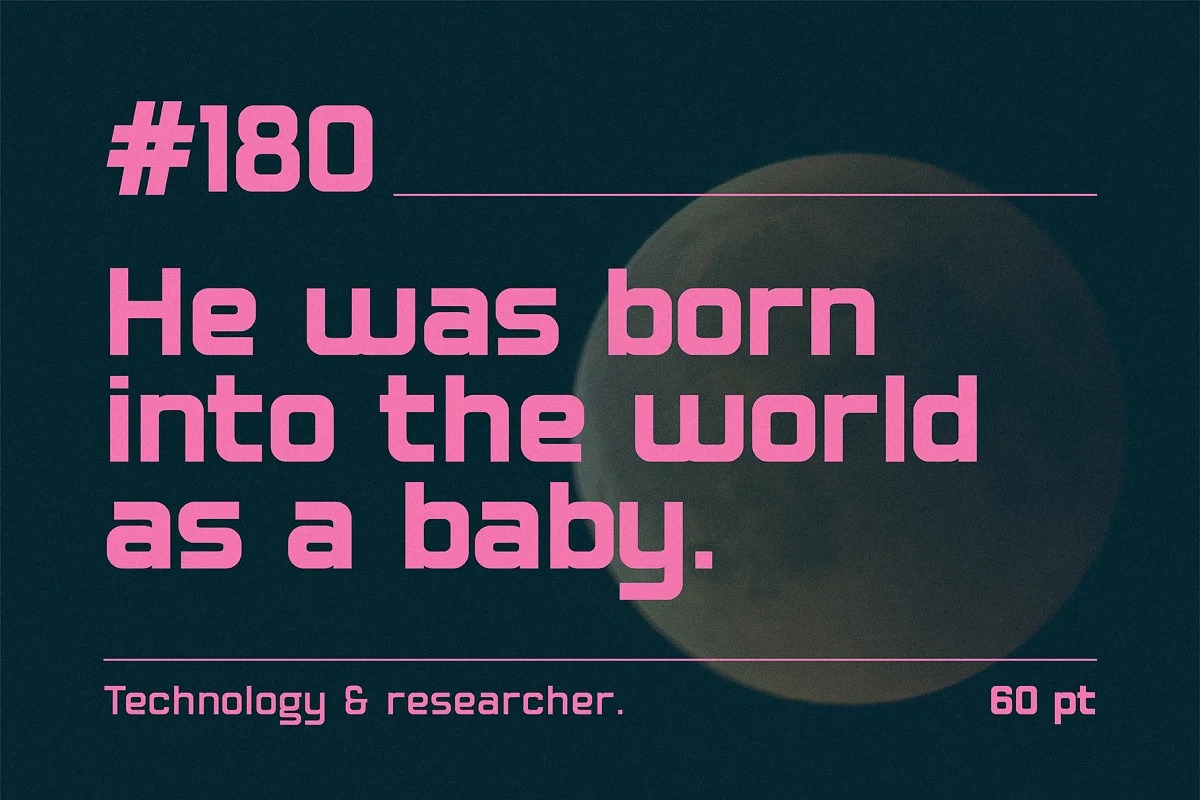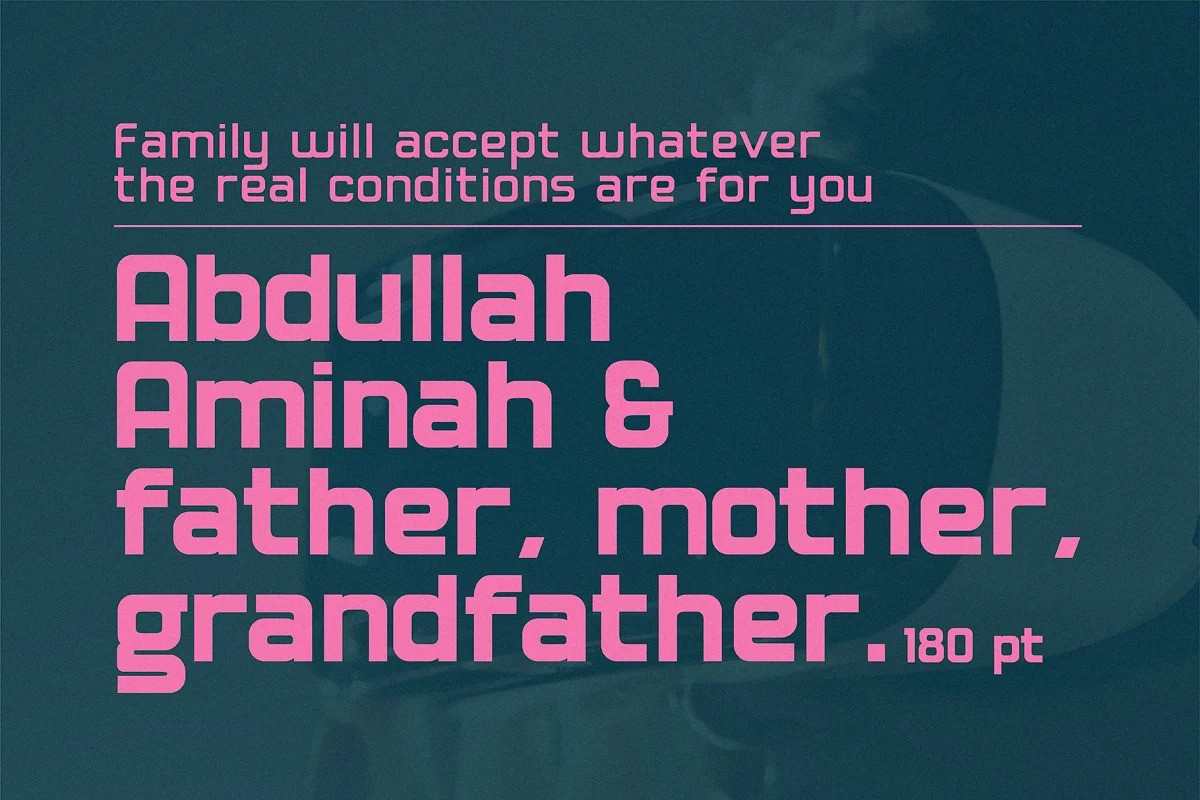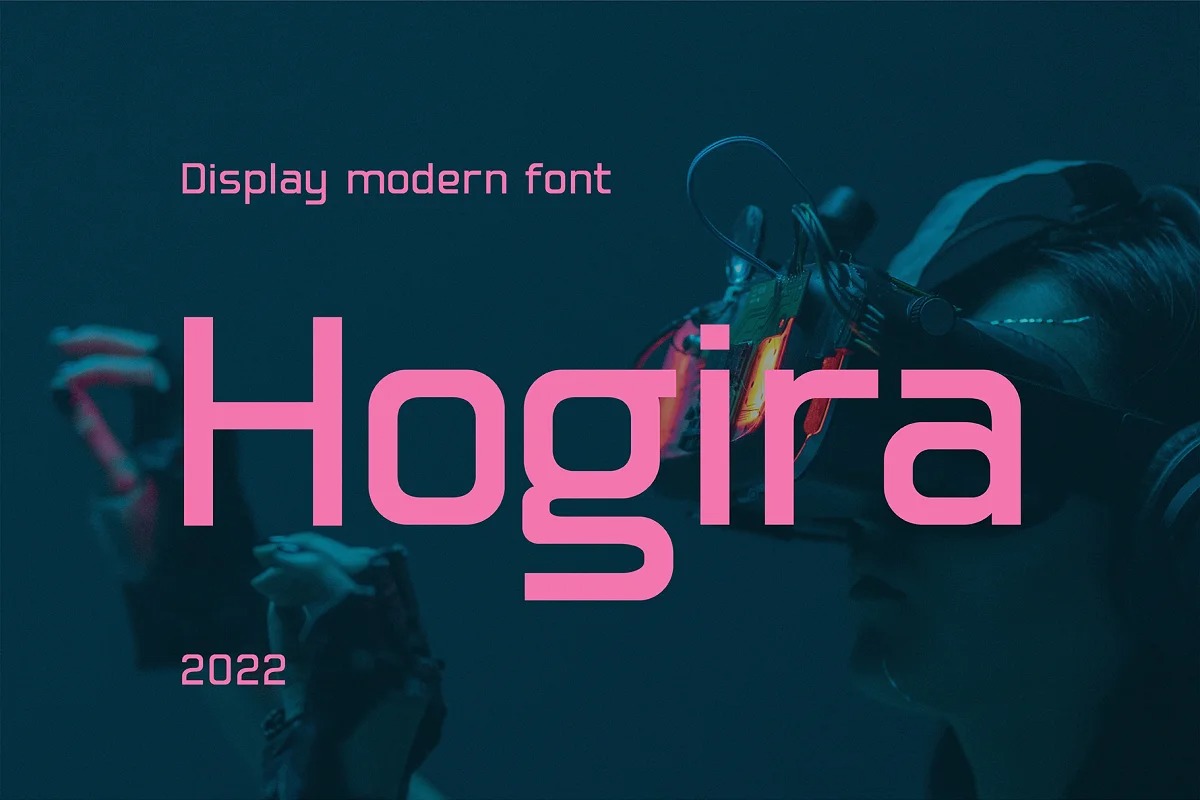
Hogira Font Family
Hogira Sans Serif Font
This is stylish and beautiful sans serif font inspired by technological developments, Hogira is a future-looking display font, Hogira is very suitable for use in writing titles, making text-based logos, websites, and modern design types that are related to emerging technology themes. Hogira also supports 20 families and multiple languages.